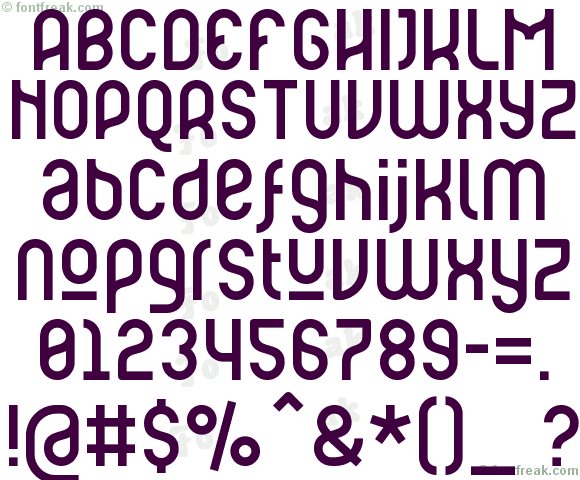
Ruler Modern
About Ruler Modern
Ruler Modern, designed by Levi Szekeres, is a striking display font that falls within the modern category. This typeface showcases a unique blend of geometric shapes and clean lines, offering a contemporary aesthetic that is both bold and versatile. With its medium stroke weight and balanced contrast, Ruler Modern maintains readability while making a strong visual impact. The spacing is thoughtfully designed, ensuring that each character stands out without feeling crowded, which is ideal for various applications.
The font's distinctive characteristics make it an excellent choice for a range of use cases. Graphic designers can utilize Ruler Modern for eye-catching branding and logo designs, where a modern flair is essential. Small business owners may find it perfect for restaurant menus, providing a fresh and inviting look that attracts customers. Additionally, its unique style lends itself well to wedding invitations, where elegance meets contemporary design. For content creators, the font can enhance social media graphics, making posts more engaging and visually appealing. Furthermore, it can be used in promotional materials like flyers and posters, where attention-grabbing typography is crucial.
The target audience for Ruler Modern includes graphic designers, small business owners, and content creators who seek a modern typeface that stands out. This font is particularly appealing for those looking to make a statement in their designs while maintaining a professional appearance.
Author Levi Szekeres